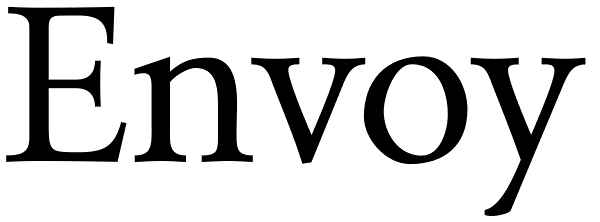
Envoy
Envoy is a serif type inspired primarily by Garalde oldstyle types. It's particularly well suited for the needs of longer text such as in books and magazines. The family includes regular, italic, bold, bold italic and small capitals.